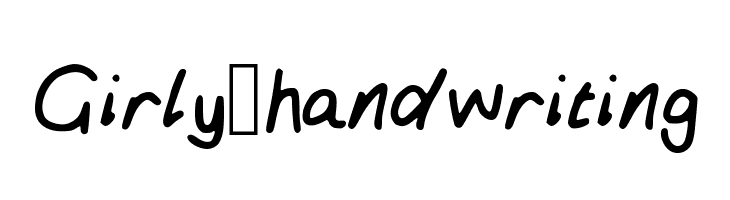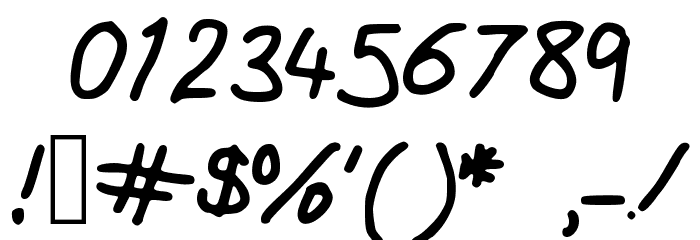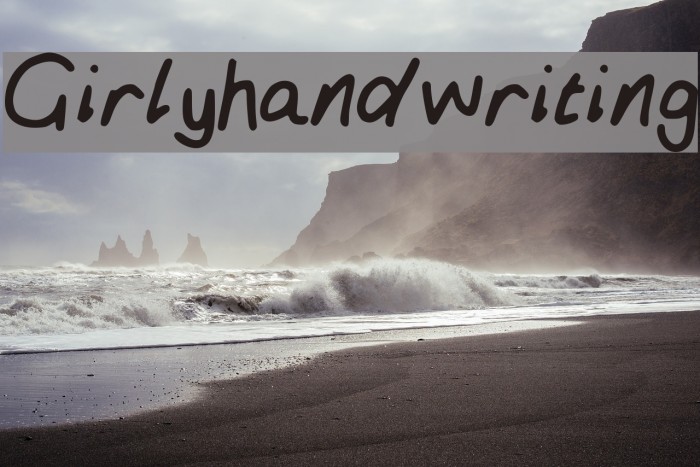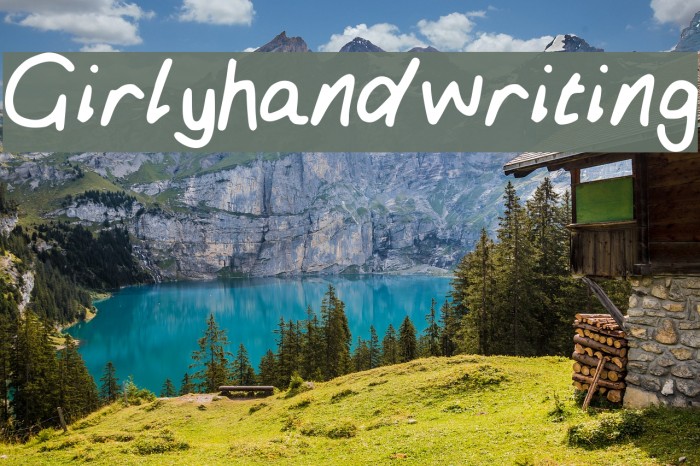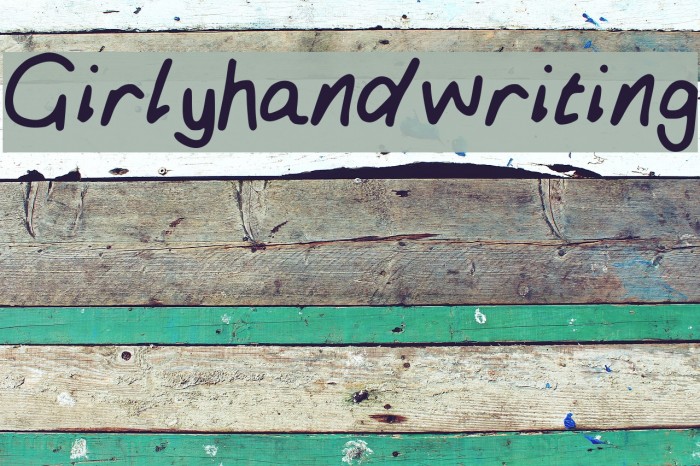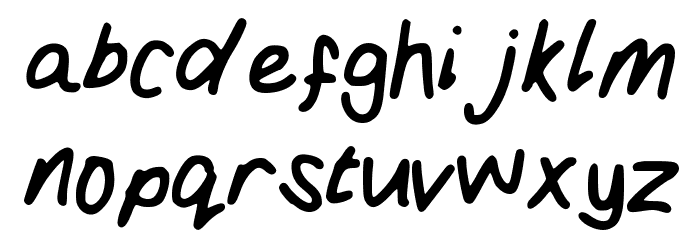
Girly_handwriting Font
Girly_handwriting Description
This font exudes a playful and casual handwritten style, characterized by its smooth, flowing curves and slightly irregular letterforms that mimic natural handwriting. The uppercase and lowercase letters maintain a consistent style, with rounded edges and a slight slant that adds to its informal charm. The numerals and special characters are crafted with the same playful touch, ensuring a cohesive look across all text. The font's overall appearance is friendly and approachable, making it ideal for projects that require a personal touch.
A playful, casual handwritten font with smooth, flowing curves from Uncategorized fonts.
- Proposed Projects: Ideal for greeting cards, personal notes, invitations, and social media graphics.
- Overall Style: Casual, Playful
- Use Case: Headlines, Informal text, Personal projects